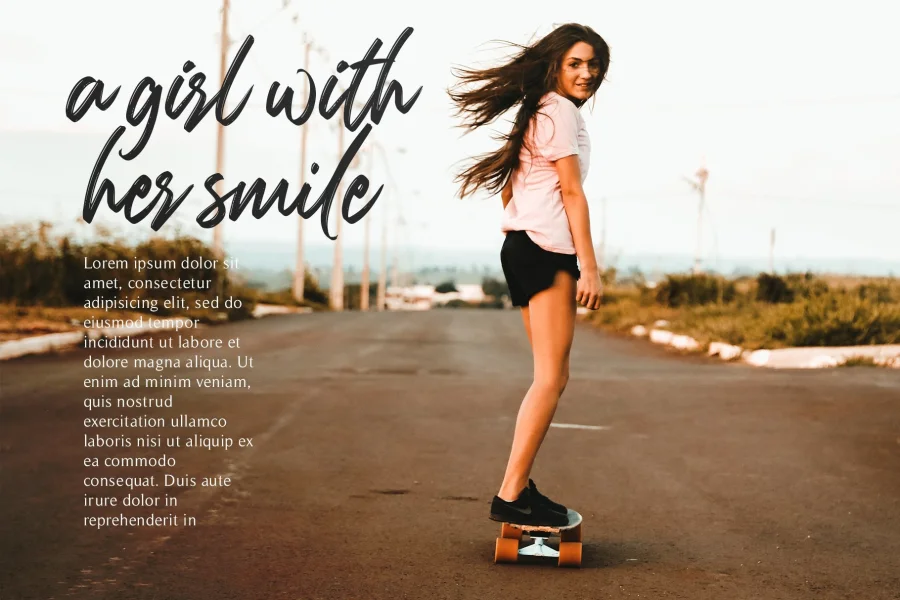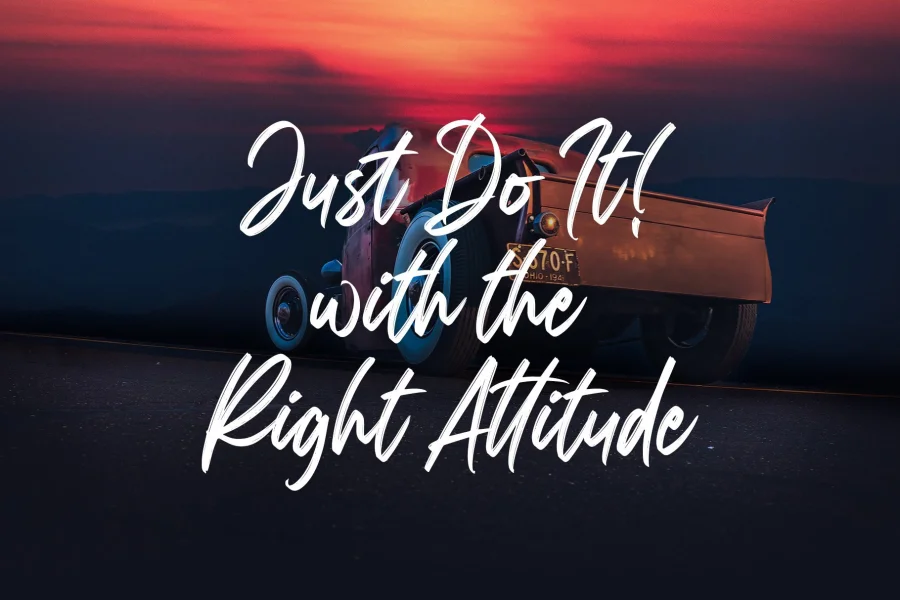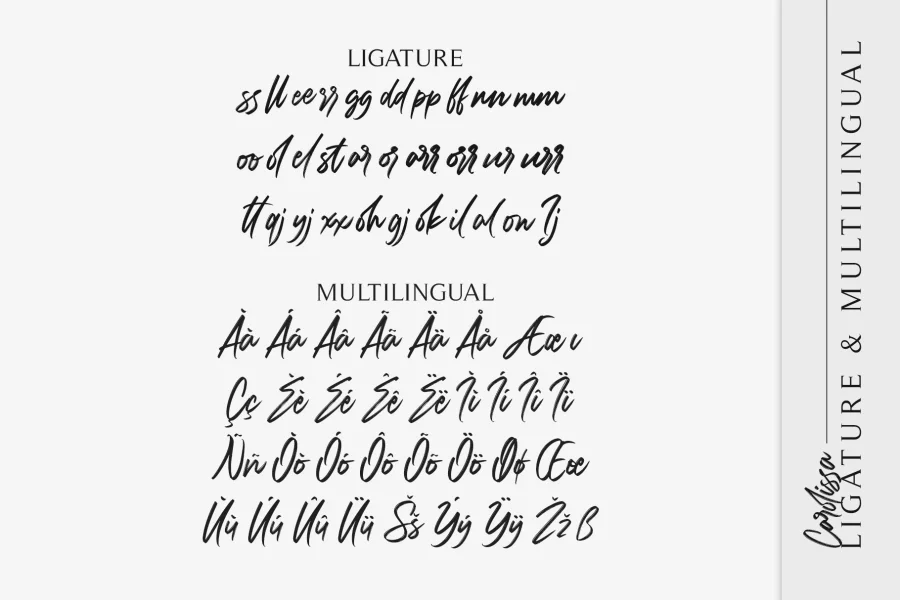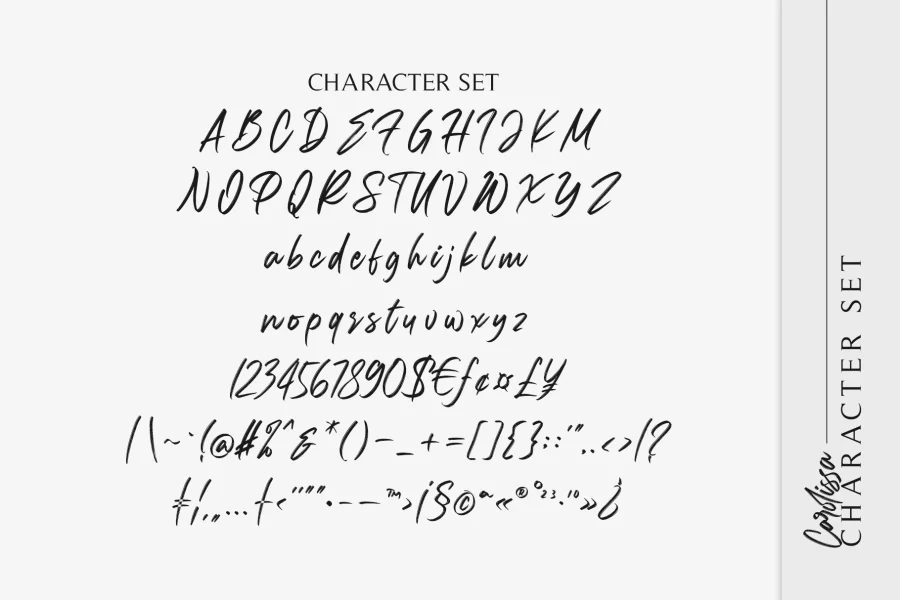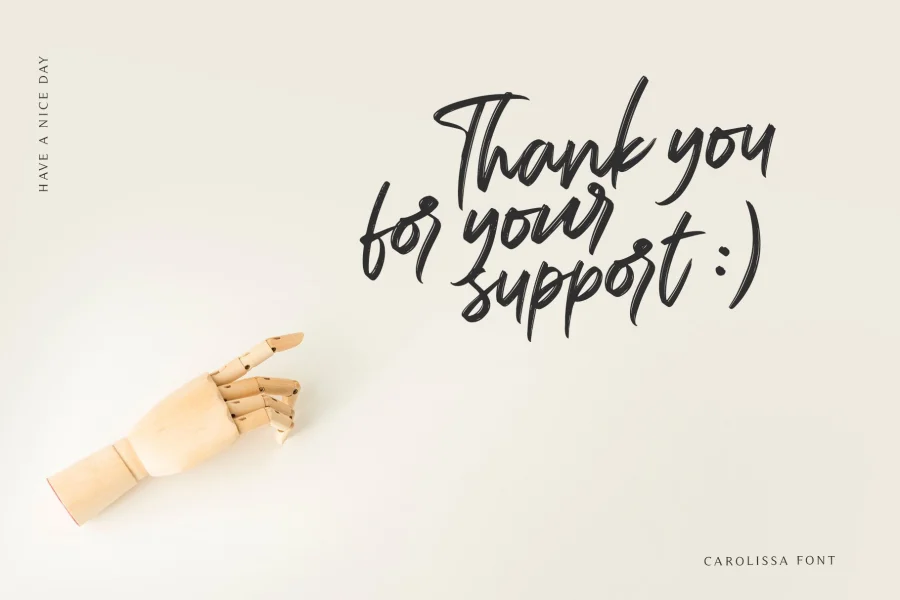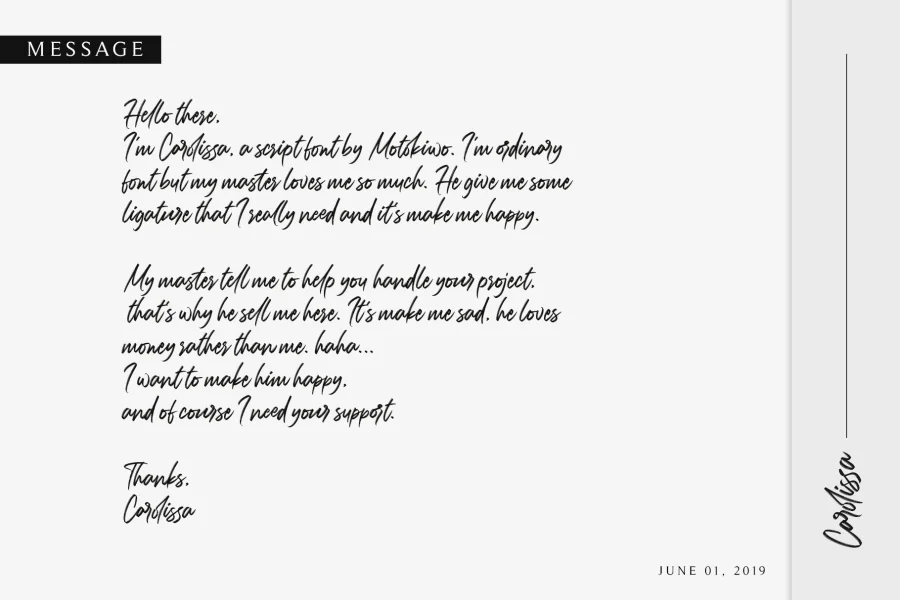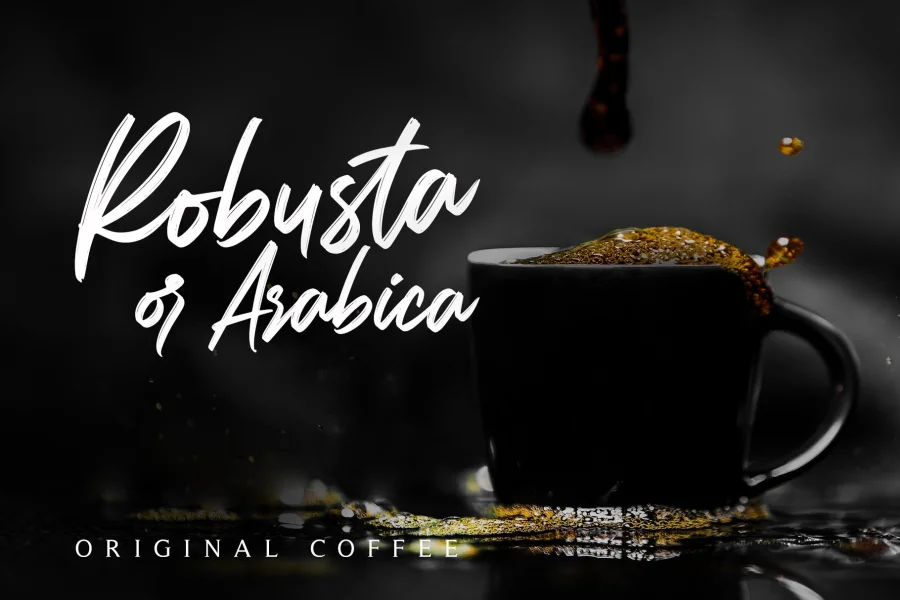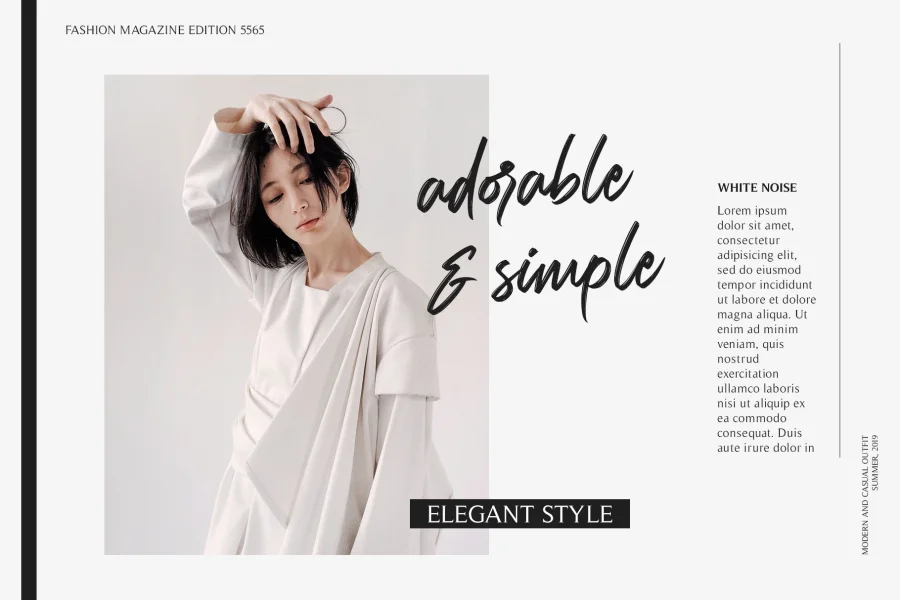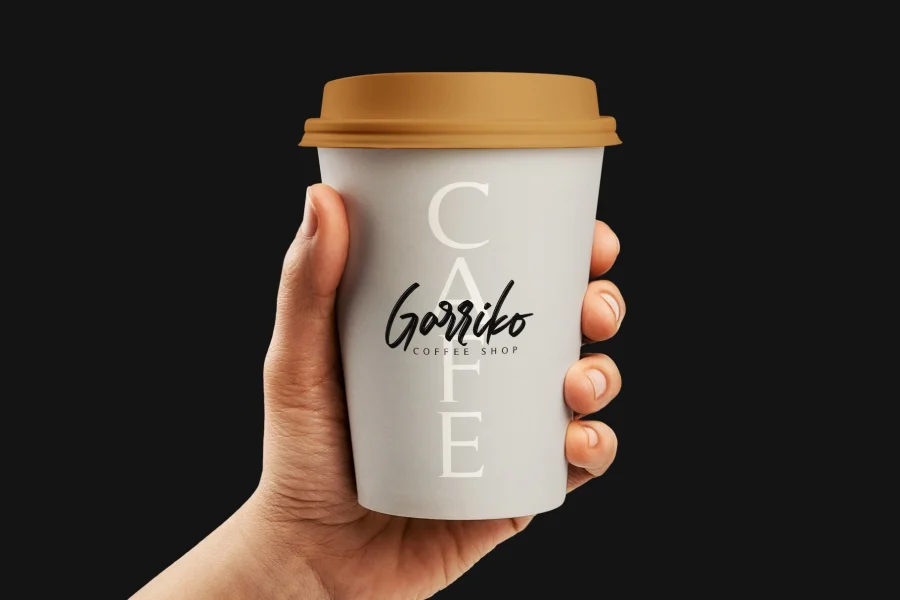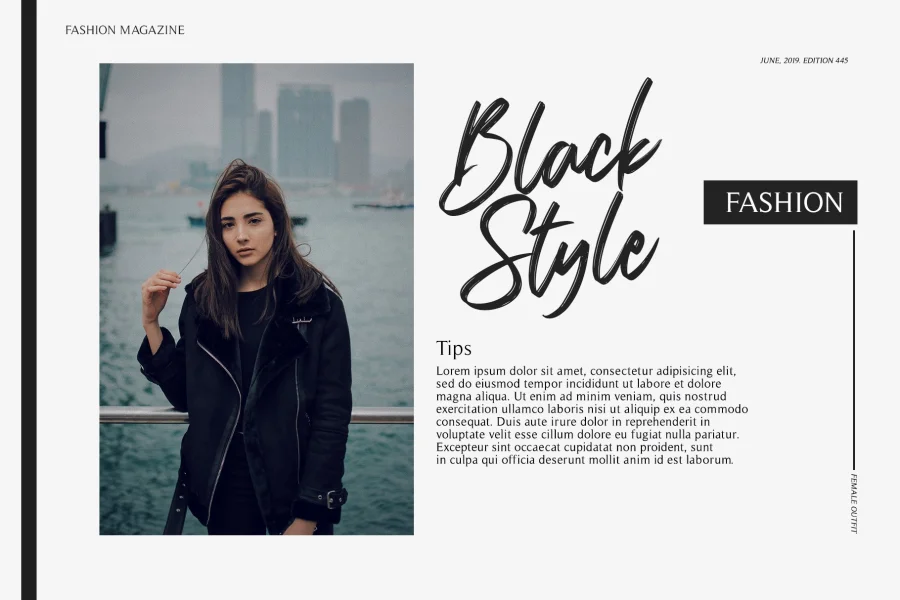
Carolissa is a script brush font with handwriting style. It's a simple and classy font that is suitable for various design project. With dynamic and spontaneous flow gestures, Carolissa will add more drama to your project.